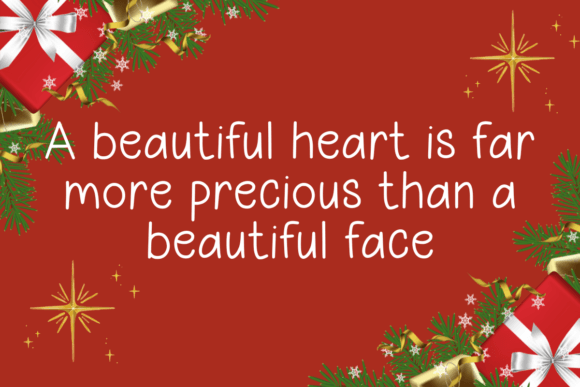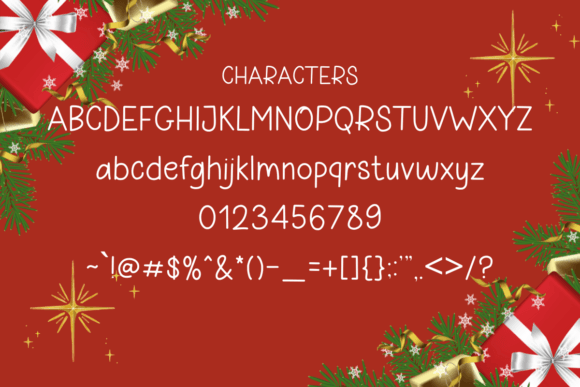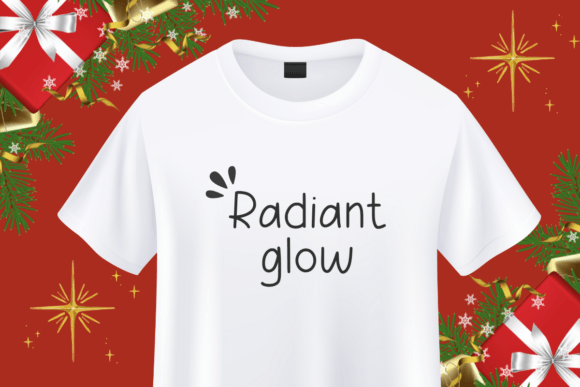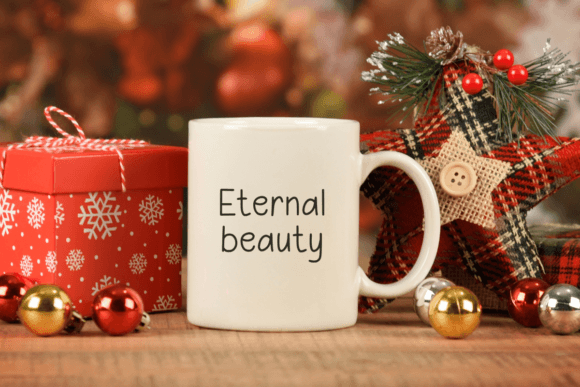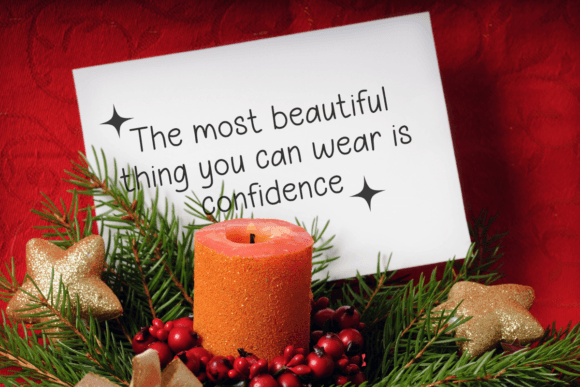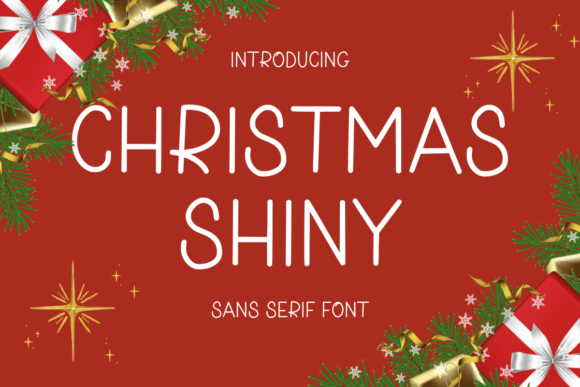
Introducing Christmas Shiny Font: Add a Touch of Festivity to Your Designs
Are you looking for a font that can add a playful and creative touch to your projects? Look no further than Christmas Shiny Font! This sans serif font is perfect for designers and crafters who want to create unique and eye-catching designs for various occasions. In this article, we’ll explore the features and benefits of Christmas Shiny Font and how you can use it to elevate your designs.
What is Christmas Shiny Font?
Christmas Shiny Font is a modern sans serif font that’s designed to add a touch of festivity to your projects. Its playful and shiny texture makes it perfect for creating designs that require a bit of whimsy and fun. The font is highly versatile and can be used for a wide range of projects, from memos and journals to cards and invitations.
Features of Christmas Shiny Font
- Playful and creative: Christmas Shiny Font has a unique and playful texture that adds a creative touch to your designs.
- Sans serif: The font features a clean and modern sans serif design that’s easy to read and looks great on various backgrounds.
- Versatile: Christmas Shiny Font can be used for a wide range of projects, including memos, journals, notes, planners, interior KDPs, cards, invitations, scrapbooks, and more.
- Multi-occasion: The font is perfect for various occasions, including Christmas, Halloween, Thanksgiving, Buddhist themes, fall designs, and more.
Use Cases for Christmas Shiny Font
Christmas Shiny Font is an incredibly versatile font that can be used for various projects. Here are some use cases to get you started:
- Christmas designs: Create festive Christmas cards, invitations, and decorations with a touch of shiny fun.
- Halloween and Thanksgiving designs: Use Christmas Shiny Font to create spooky and autumn-themed designs that stand out.
- Buddhist themes: Add a touch of festivity to your Buddhist-themed designs, such as prayer cards and meditation journals.
- Fall designs: Create cozy fall-themed designs, such as mini calendars and tumbler wraps, with a warm and inviting tone.
- Funky patterns: Use Christmas Shiny Font to create funky patterns and laser cuts that add a touch of personality to your designs.
- Interior KDPs: Add a creative touch to your interior KDPs, such as journals and planners, with Christmas Shiny Font.
- Cards and invitations: Create eye-catching cards and invitations for various occasions, including birthdays, weddings, and holidays.
- Scrapbooks: Add a playful touch to your scrapbooks and photo albums with Christmas Shiny Font.
- T-shirts and quotes: Use Christmas Shiny Font to create fun and quirky t-shirts and quotes that make a statement.
- Tarot cards and zodiac designs: Add a touch of mysticism to your tarot cards and zodiac designs with a unique and playful font.
Benefits of Using Christmas Shiny Font
Using Christmas Shiny Font offers several benefits, including:
- Unique and eye-catching designs: The font’s playful and shiny texture adds a creative touch to your designs, making them stand out from the crowd.
- Time-saving: Christmas Shiny Font is easy to use and can save you time when creating designs for various occasions.
- Versatility: The font’s versatility means you can use it for a wide range of projects, reducing the need to purchase multiple fonts.
- High-quality: Christmas Shiny Font is a high-quality font that’s designed to produce crisp and clear results, even at small sizes.
Christmas Shiny Font is a playful and versatile sans serif font that’s perfect for designers and crafters who want to add a creative touch to their projects. With its unique and shiny texture, this font is ideal for various occasions, including Christmas, Halloween, Thanksgiving, and more. Whether you’re creating cards, invitations, scrapbooks, or t-shirts, Christmas Shiny Font is a great choice. So why wait? Download Christmas Shiny Font today and start creating eye-catching designs that shine!